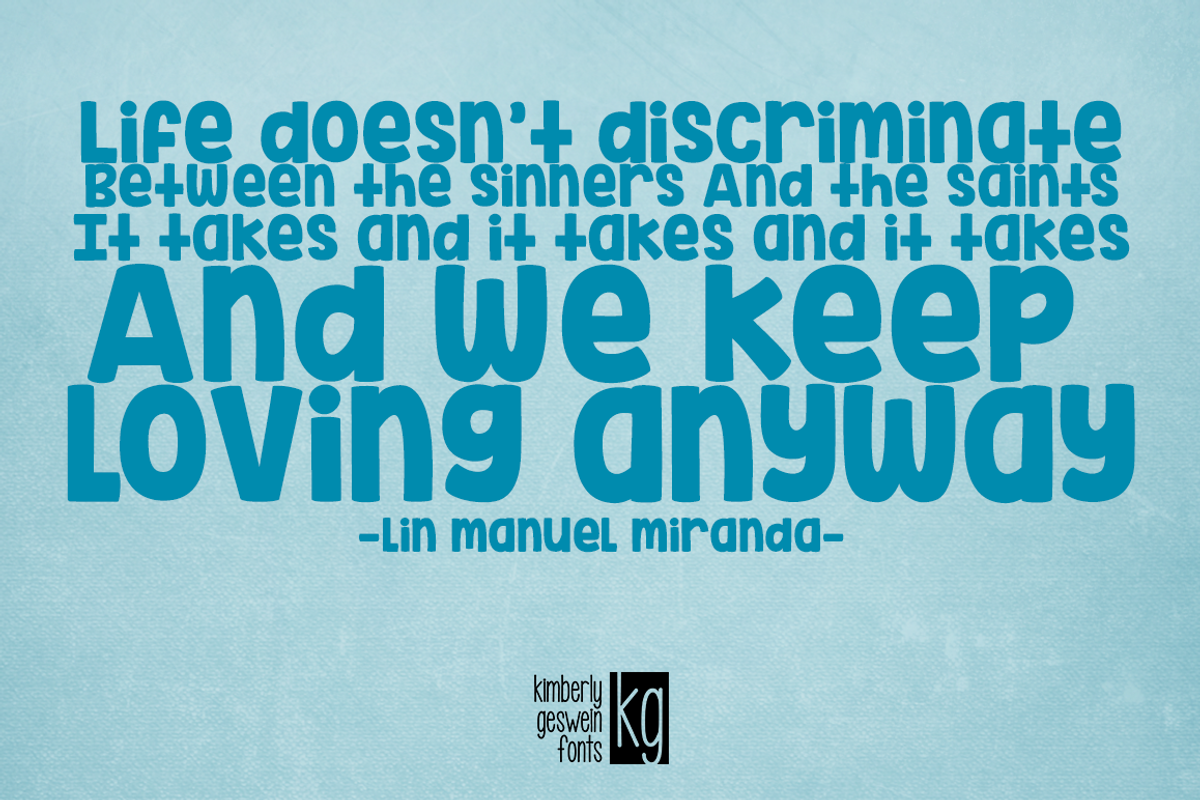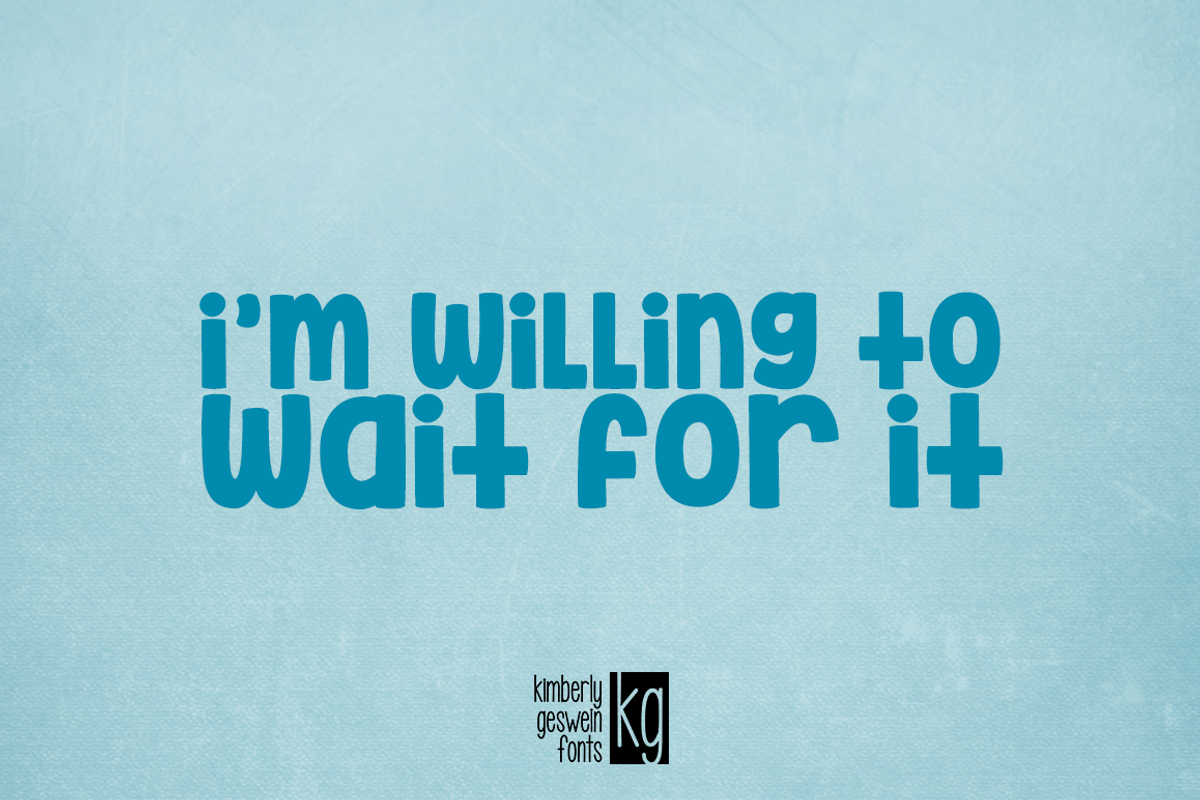
KG Inimitable Original Font
KG Inimitable Original Font by Kimberly Geswein Fonts is a font selected for branding, posters, packaging, typography.
Why KG Inimitable Original Font is worth a look
KG Inimitable Original Font by Kimberly Geswein Fonts fits naturally into Branding, posters, packaging, typography.